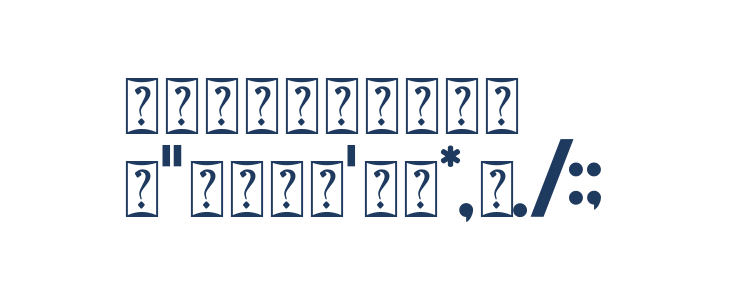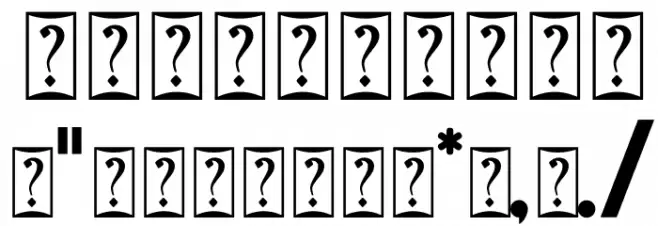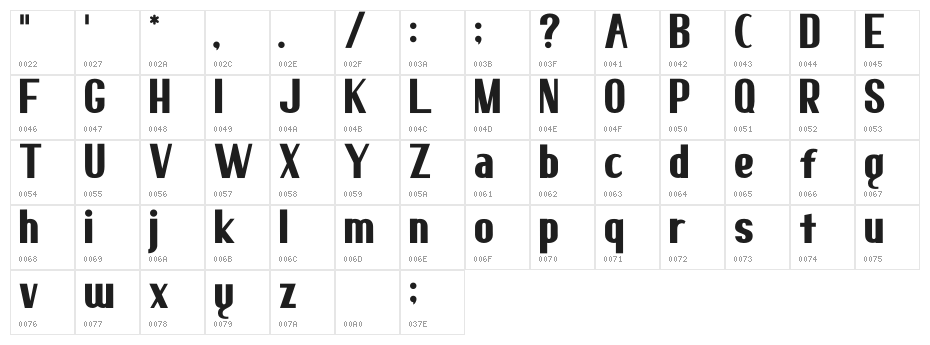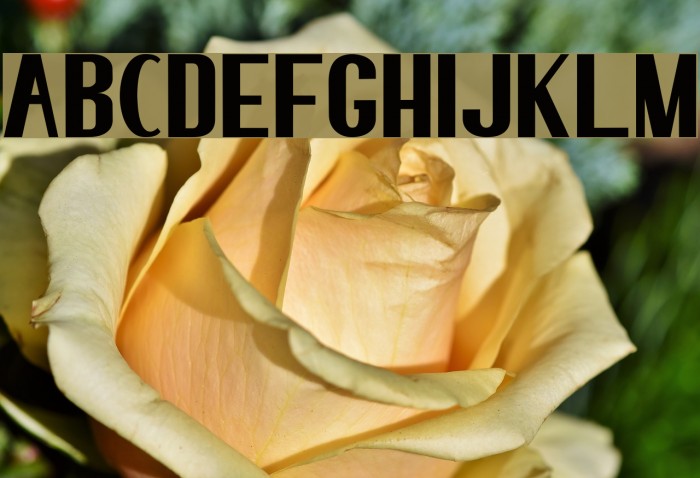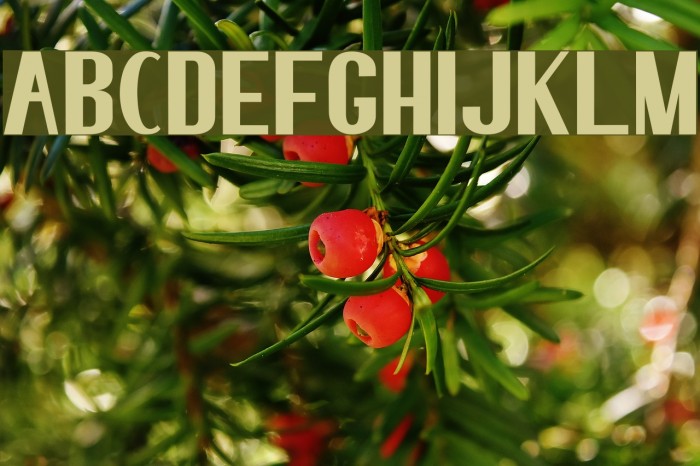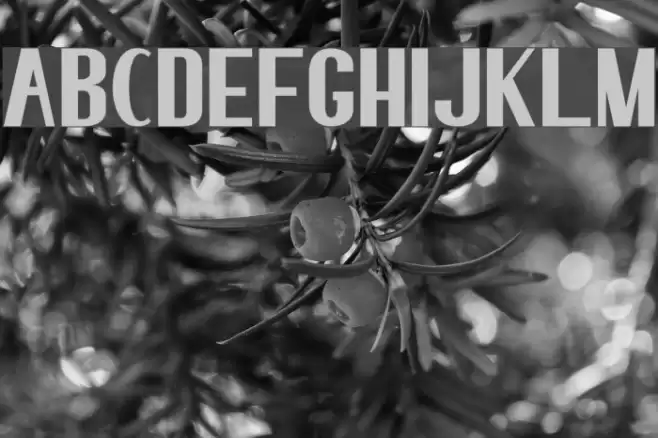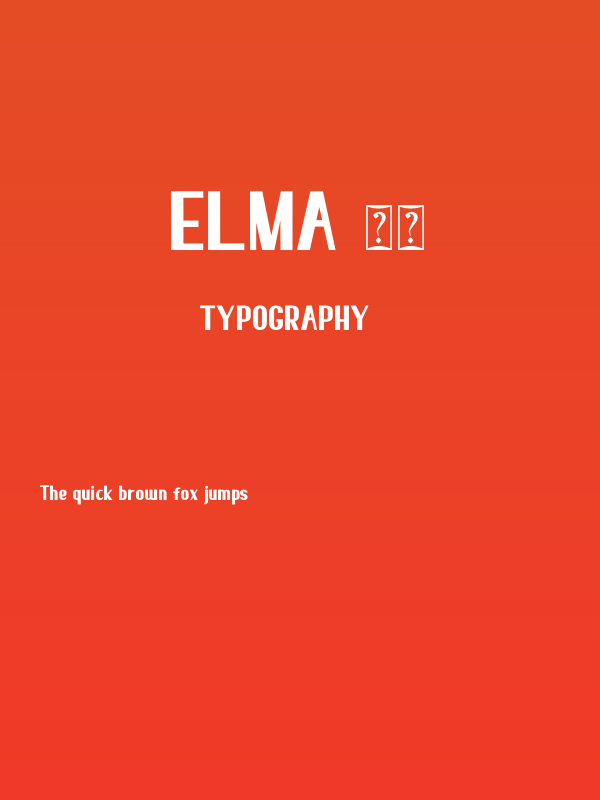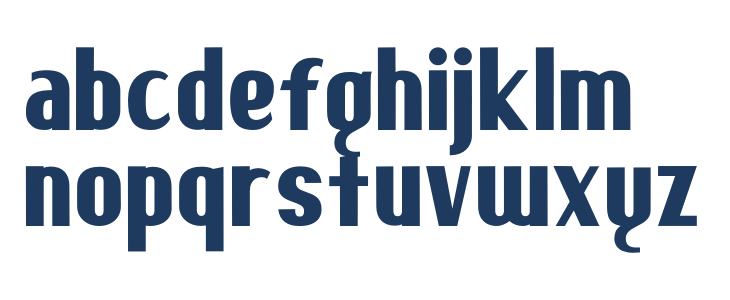
elma 02 Font
elma 02 Description
This font features bold, geometric letterforms with a strong presence. The uppercase characters are tall and commanding, while the lowercase letters maintain a consistent weight, offering a harmonious balance. The design is clean and modern, with a slight vintage touch, making it versatile for various applications. The numbers are clear and easy to read, and the special characters are distinct, adding to the font's utility. The overall style is robust and impactful, suitable for making a statement.